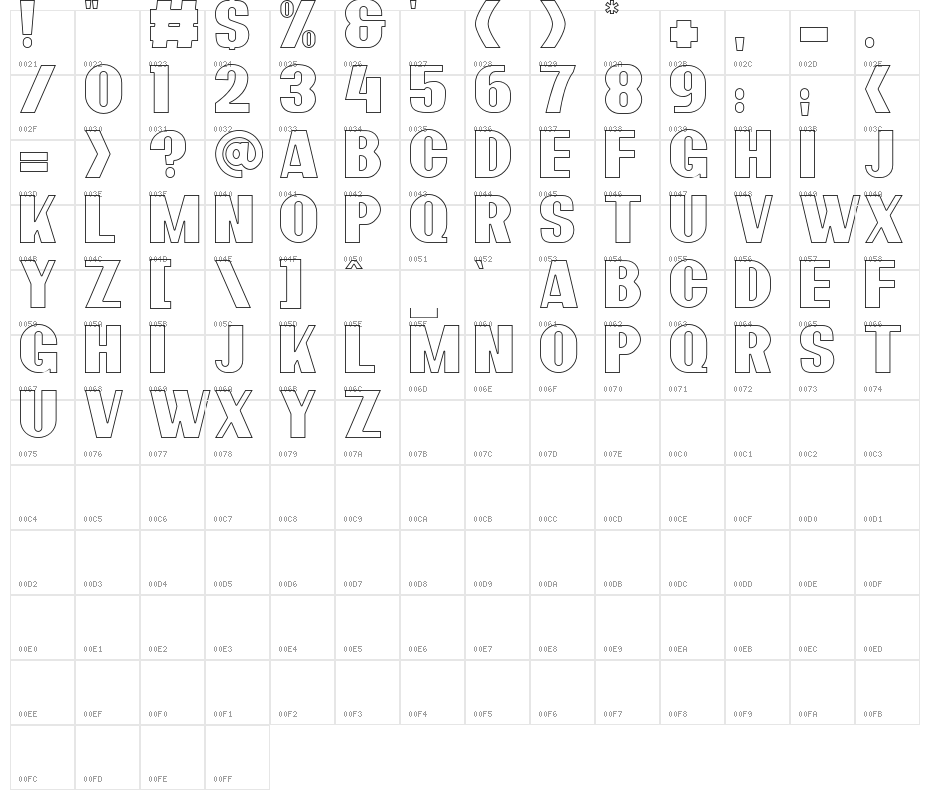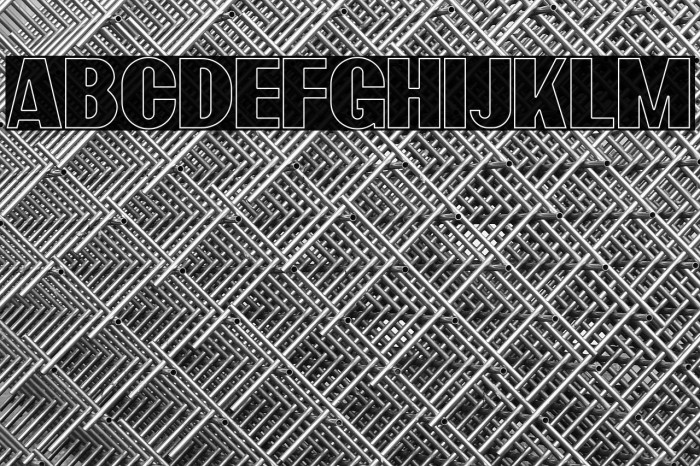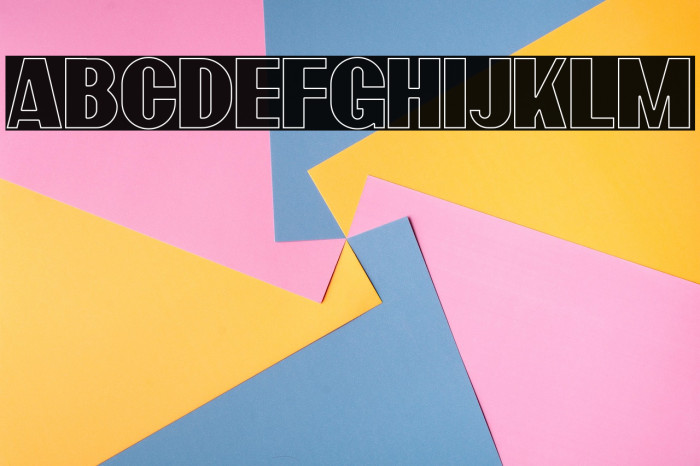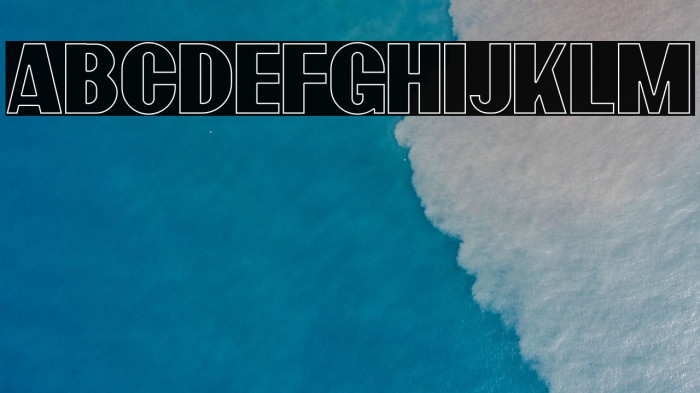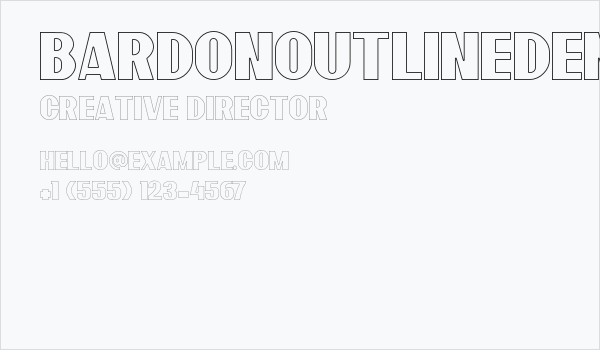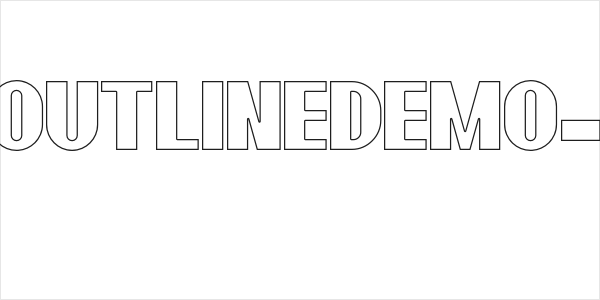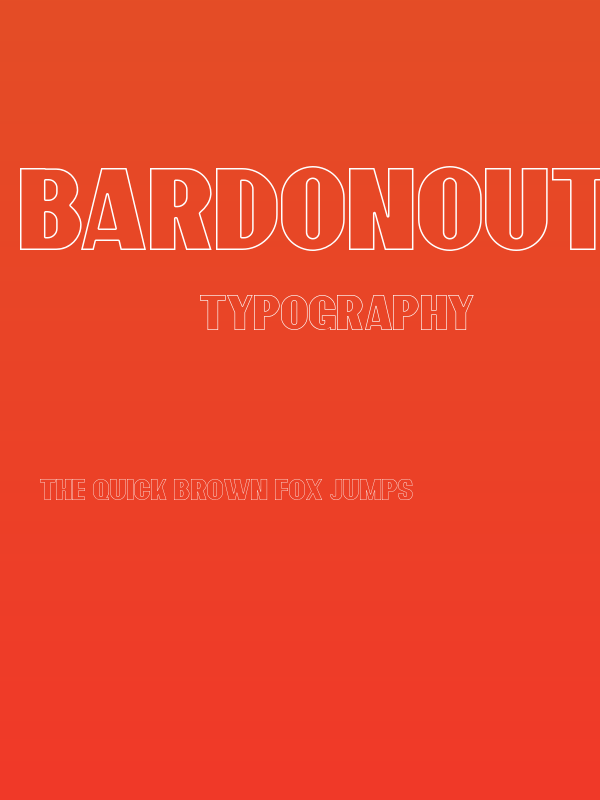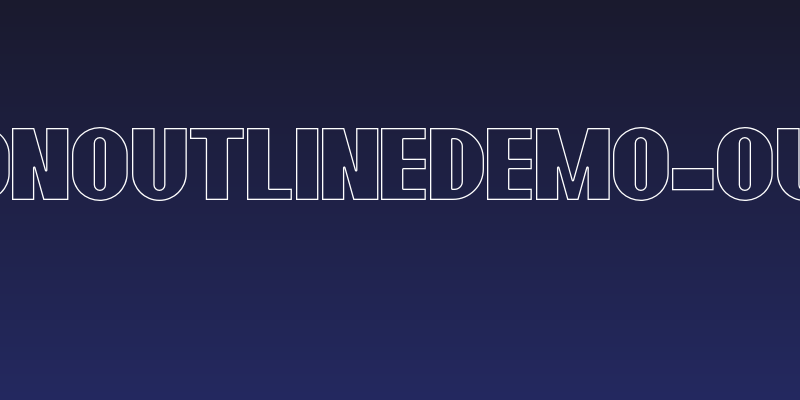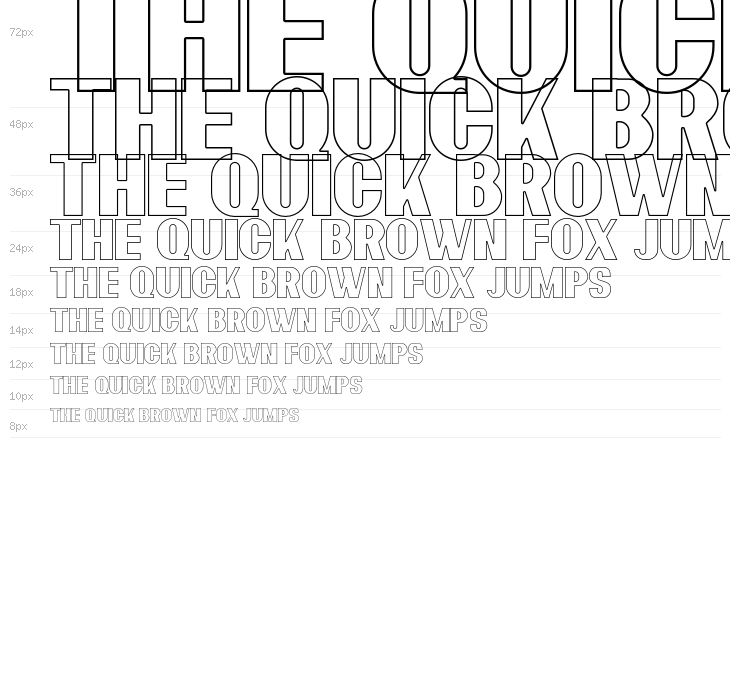
BardonOutlineDemo-Outline Font
BardonOutlineDemo-Outline Description
This typeface features a bold, outlined style that emphasizes each character with a clear and distinct border. The uppercase and lowercase letters maintain a consistent geometric form, providing a modern and structured appearance. The numerals and special characters follow the same outlined design, ensuring uniformity across all elements. The font's clean lines and lack of internal fill make it ideal for creating eye-catching headlines and titles. Its simplicity and clarity allow for easy readability, even at smaller sizes, while the outline adds a unique visual interest.
| Proposed Projects | Ideal for headlines, posters, logos, and any design requiring a modern, standout text. |